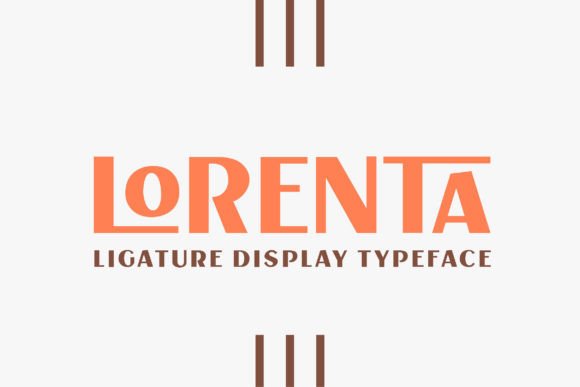
Introducing Lorenta Font, the ultimate choice for anyone seeking the best font for magazine adverts. Crafted by the renowned Bellinghamtype, this font family offers a captivating and informative design that will undeniably elevate your brand and typography to new heights.
With its attractive and exquisite sans-serif style, Lorenta Font effortlessly captures attention and leaves a lasting impression. Its clean and minimalist lines, combined with subtle yet elegant curves, create a sense of modern sophistication that is simply irresistible. Whether you're designing a magazine advert or working on branding materials, this font will effortlessly add a touch of professionalism and class.
But what truly sets Lorenta Font apart is its versatility. This font family adapts flawlessly to any project, allowing you to express your creativity without limitations. From bold headlines to elegant body text, Lorenta Font has the power to transform any piece of content into a captivating masterpiece.
One of the key features that makes Lorenta Font a must-have is its PUA encoding. Unlocking a world of possibilities, this encoding allows you to easily access all glyphs and swashes. Say goodbye to limitations and explore countless design variations, effortlessly enhancing your work with stunning typographic elements.
When it comes to marketing your products or services, emotions play a crucial role in capturing your audience's attention. Lorenta Font understands this perfectly, as it has been carefully crafted to evoke emotion and create a lasting connection with your target audience. Whether you want to inspire trust, convey elegance, or ignite excitement, this font will become your most valuable ally.
In summary, Lorenta Font is not just a font – it's a game-changer. Its captivating design, versatility, and PUA encoding make it the perfect choice for those who seek to make a statement with their typography. Elevate your brand, captivate your audience, and unlock a world of creative possibilities with Lorenta Font. Get ready to leave a lasting impression that will set you apart from the rest.